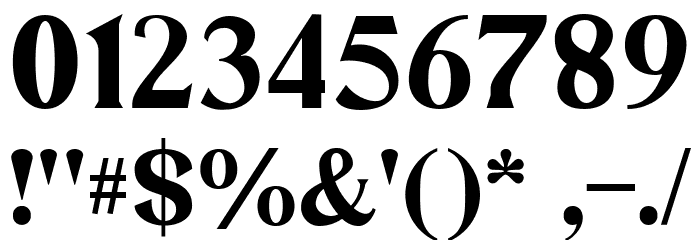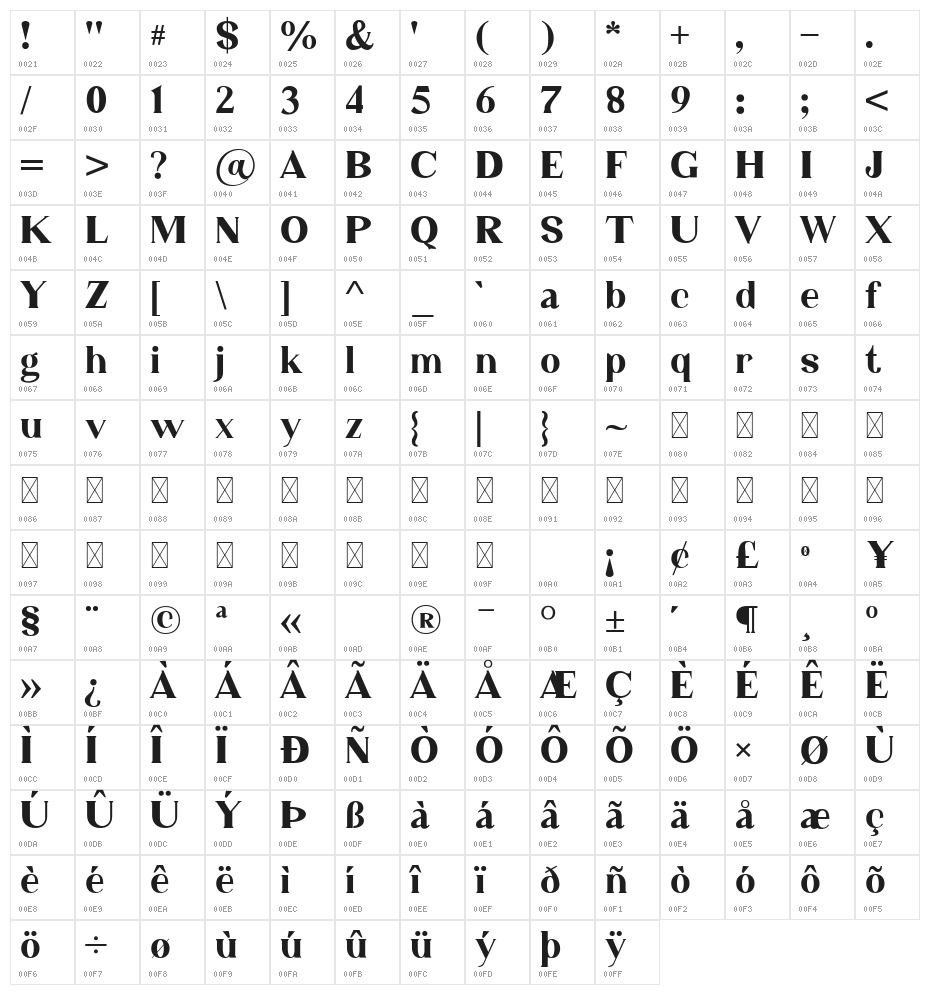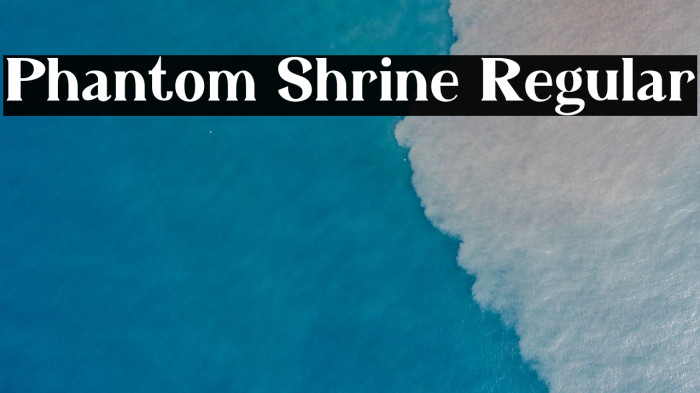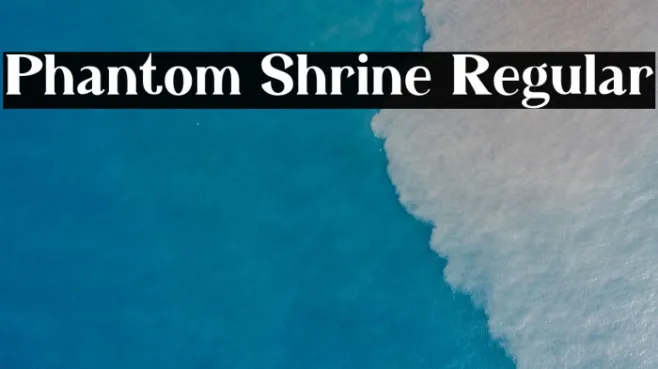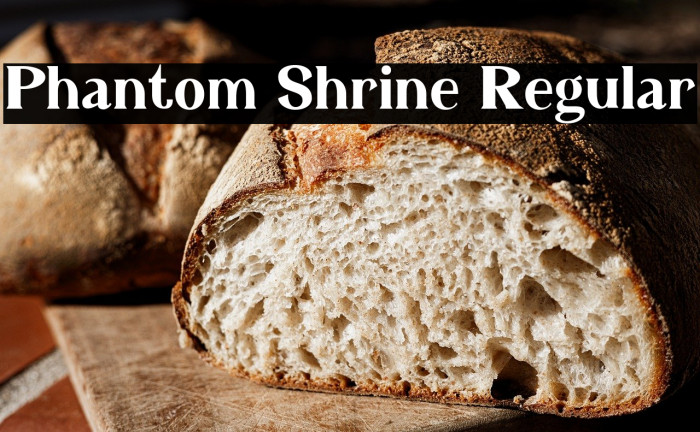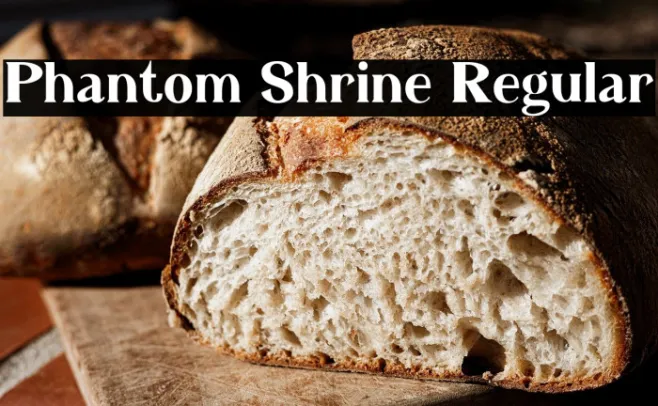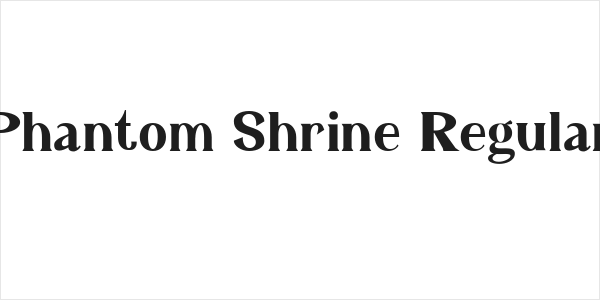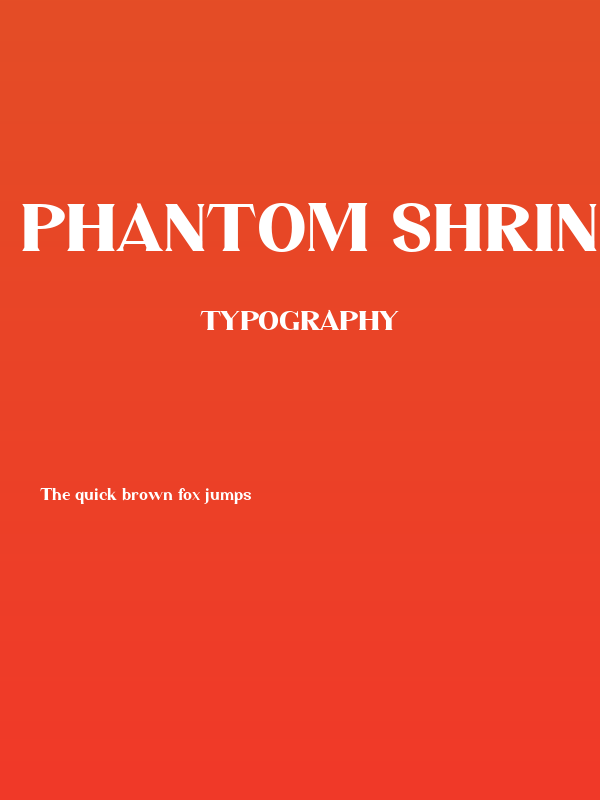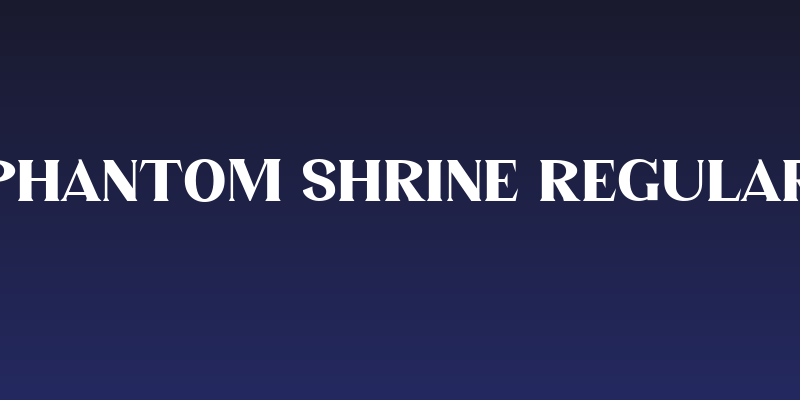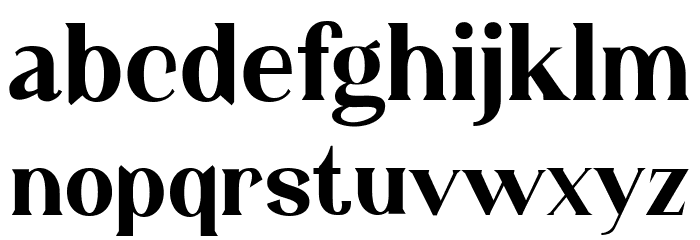
Phantom Shrine Regular Font
Phantom Shrine Regular Description
This typeface exudes a classic elegance with its bold and pronounced serifs. The uppercase letters are strong and commanding, while the lowercase letters maintain a consistent style that complements the overall design. The numerals are clear and well-defined, making them suitable for both display and text purposes. Special characters are crafted with attention to detail, ensuring they integrate seamlessly with the rest of the font. The font's high contrast between thick and thin strokes adds to its sophisticated appearance, making it ideal for projects that require a touch of refinement.
| Use Case | Headlines, Logos, Editorial design |
| Proposed Projects | Ideal for book covers, editorial design, branding, and luxury product packaging. |